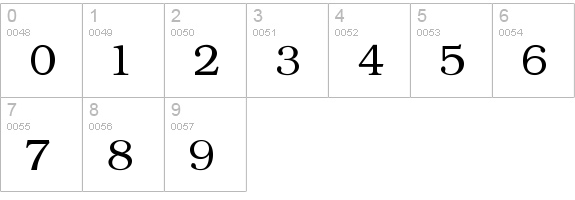
BookmanLight is a classic serif font that exudes elegance and sophistication. With its clean lines and timeless appeal, this font is perfect for a wide range of design projects, from formal invitations to professional documents. The slender strokes and graceful curves of BookmanLight make it both stylish and easy to read, enhancing the overall aesthetic of any text. The best part about BookmanLight is that it is completely free to download! You can find this exquisite font, along with many others, at FontsMarket.com. Whether you are a designer looking to add a touch of finesse to your work or someone who appreciates the beauty of well-crafted typography, BookmanLight is a fantastic choice that won't cost you a dime. Download it today and elevate your designs with this elegant and versatile font.